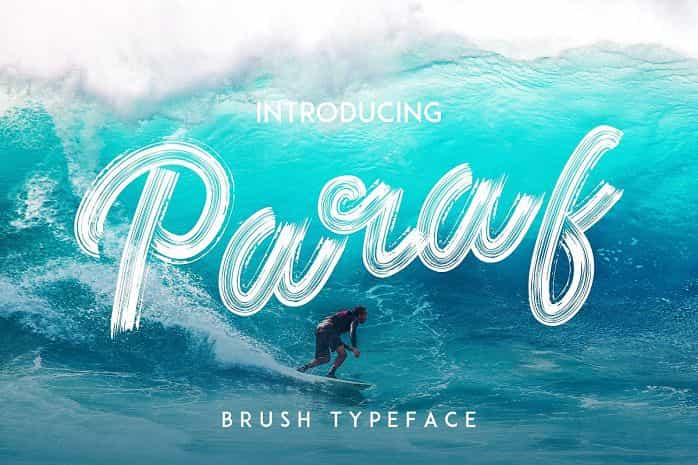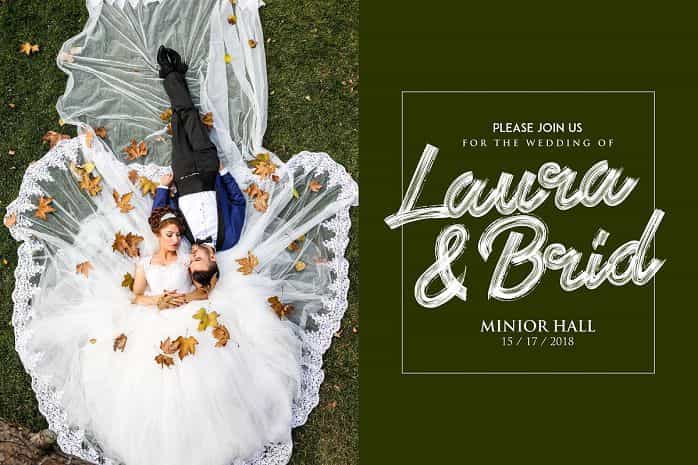
Discover Paraf Brush Font, part of the Brush collection—a versatile and unique font perfect for adding a personal touch to your projects. Download it for free and enjoy crafting designs with style, from invitations to social media posts. This font is available exclusively for personal use, giving you the freedom to create without limits. Unlock your creativity with Paraf Brush Font today!
Introducing Paraf Font – If you’re looking for a versatile font that can be creative for use across watercolor style and bold hand lettering, maybe Paraf is a good option.